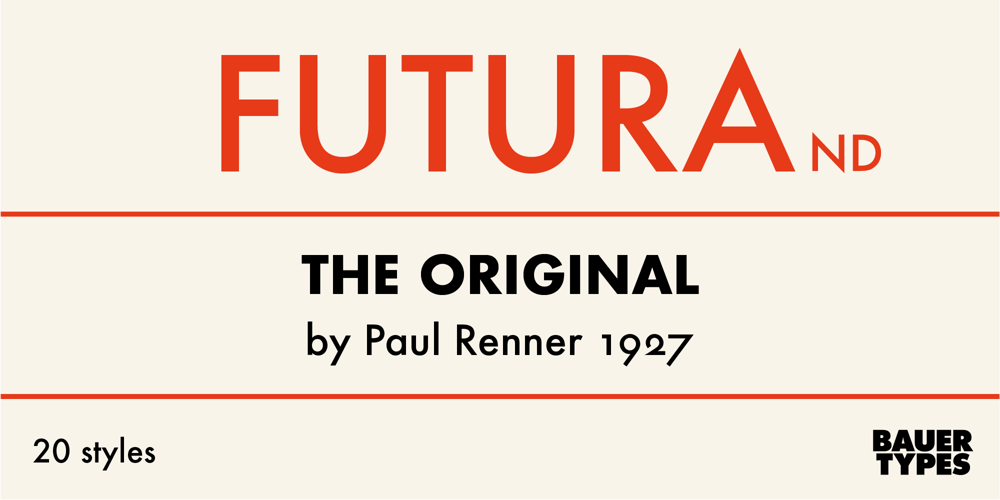
Futura ND Font Family was designed by Paul Renner, Marie-Thérèse Koreman and published by Neufville Digital. Futura ND contains 20 styles and family package options. Futura is one of the best known and most widely used of modern typefaces. Designed by Paul Renner between 1924-1927 for the Bauersche Giesserei, it remains today one of the most successful typefaces due to its simplicity of features, perfect legibility, and meticulous finish of each of its letters.Its great variety of styles and weights makes Futura particularly fit for distinguished user interfaces, information displays, smart watches, e-readers, television apps, technical appliances, and internet-related uses.Futura is a Trademark of BauerTypes SL